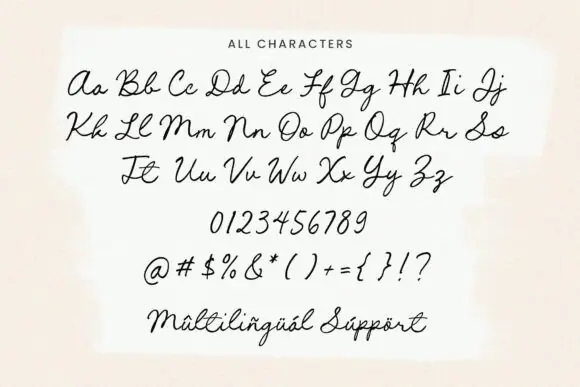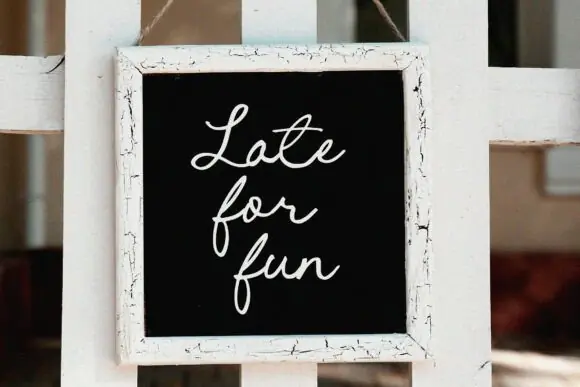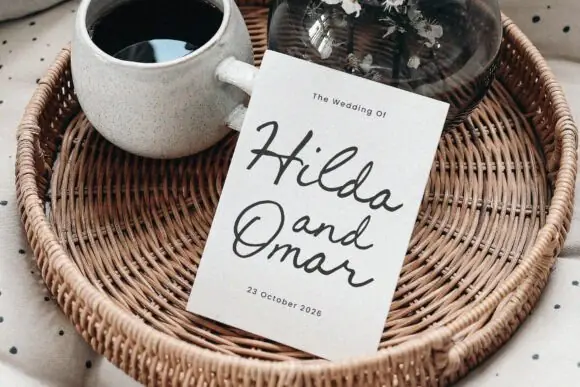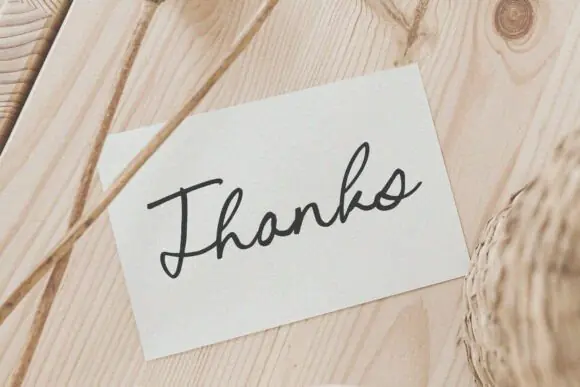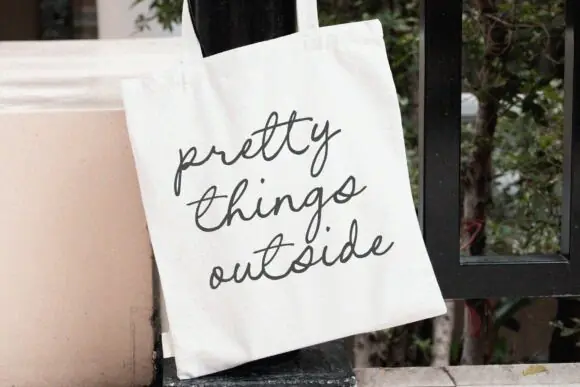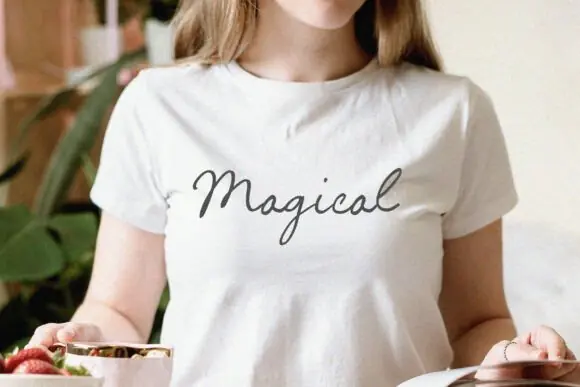
Create warm, graceful, and stylish designs with Cursive Amber Font, a beautiful handwritten script typeface featuring smooth flowing strokes and elegant letter connections. Inspired by natural penmanship, this font brings a soft human touch to your creative projects while maintaining a balance of sophistication and casual charm.
Cursive Amber is perfect for designers, wedding creators, boutique brands, small business owners, crafters, and digital sellers who want to create refined typography with a handwritten feel. Its graceful curves and fluid style work beautifully for invitations, logos, branding, wedding stationery, greeting cards, product labels, packaging, social media graphics, quote designs, and more.
Design Style:
Cursive, handwritten, script, smooth, flowing, elegant, graceful, warm, sophisticated, casual, stylish, human, refined, and charming.
Use Cursive Amber Font to add a polished handwritten personality to your designs and create typography that feels elegant, natural, and beautifully expressive.